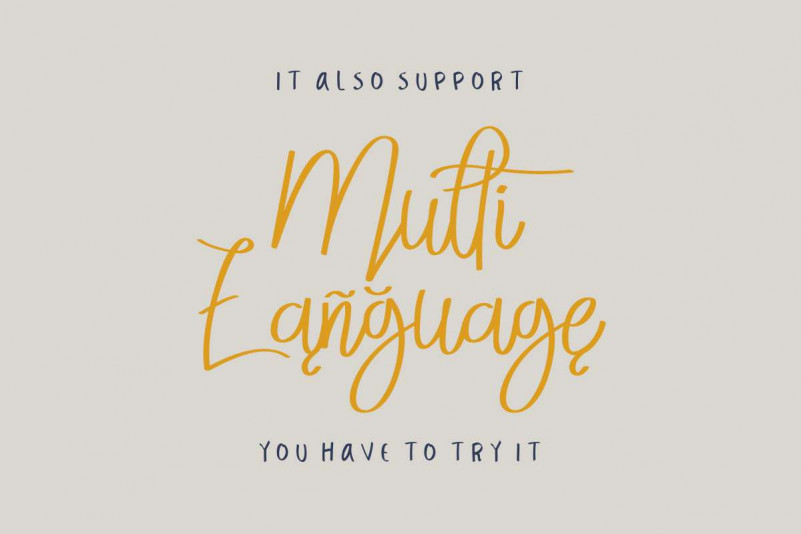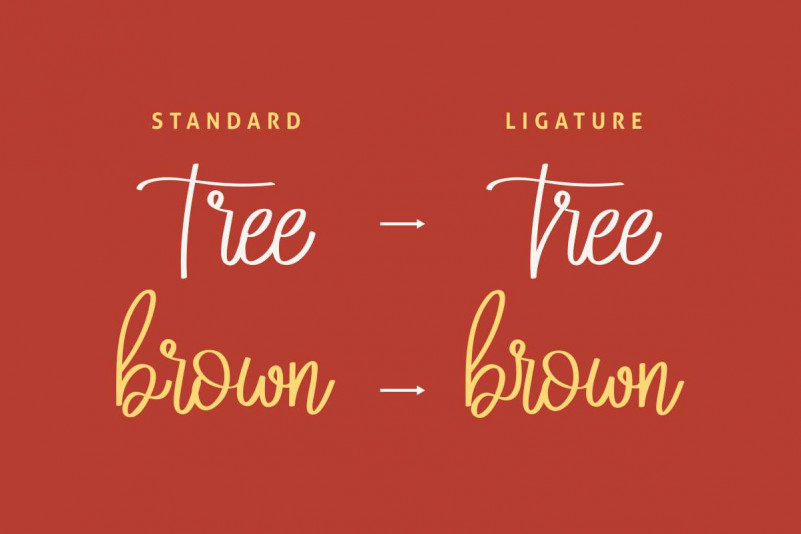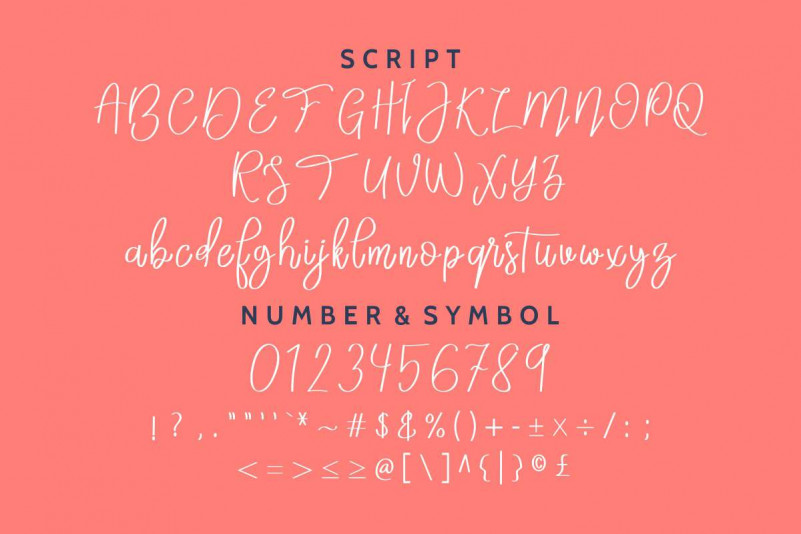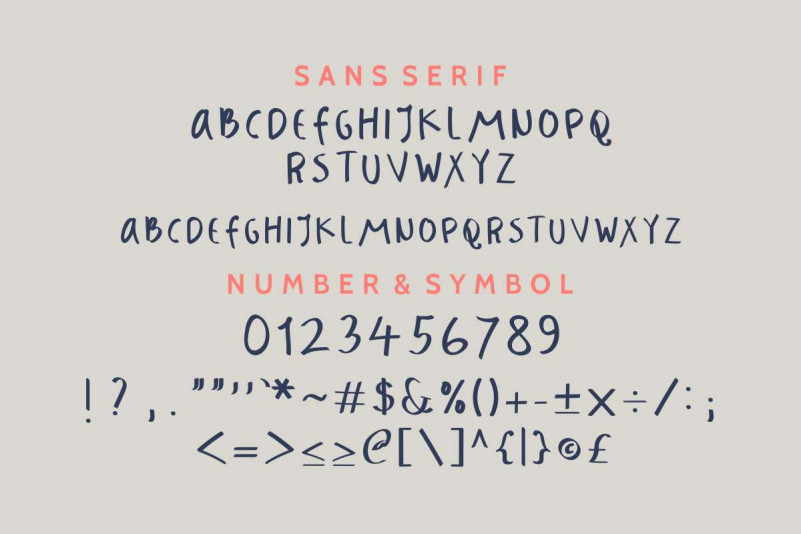
Badass Holliday Script Font Duo
Hey hey hey! Introducing our newest font : Badass Holliday Script Font Duo! It’s a duo font : Handwriting + Sans display This is a new modern decorative font family with a script and sans handmade display font .